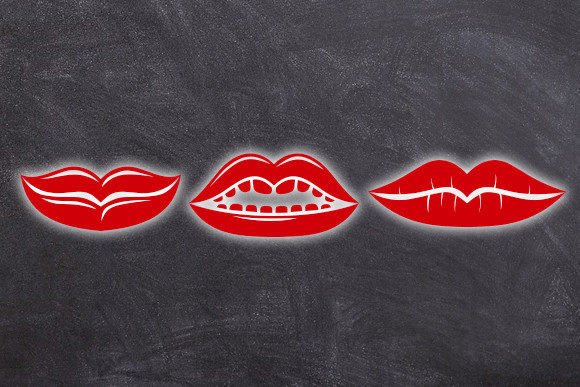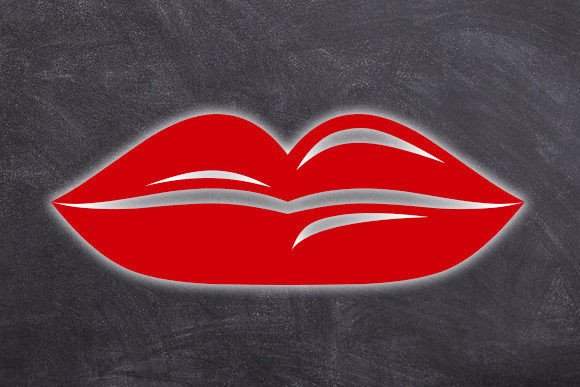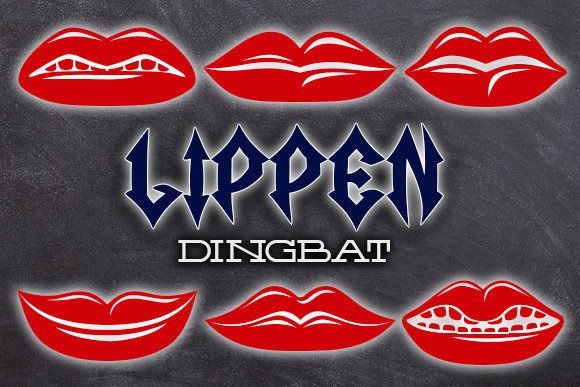
Introduction to Lippen Font
Lippen is a lovely dingbats font that will make your designs look amazing.
Use this dingbat on posters, t-shirts, and prints .
Why Choose Lippen Font?
Lippen Font offers exceptional quality and versatility, making it a valuable addition to your design toolkit. Whether you’re creating for personal projects or commercial use, Lippen Font delivers professional results.